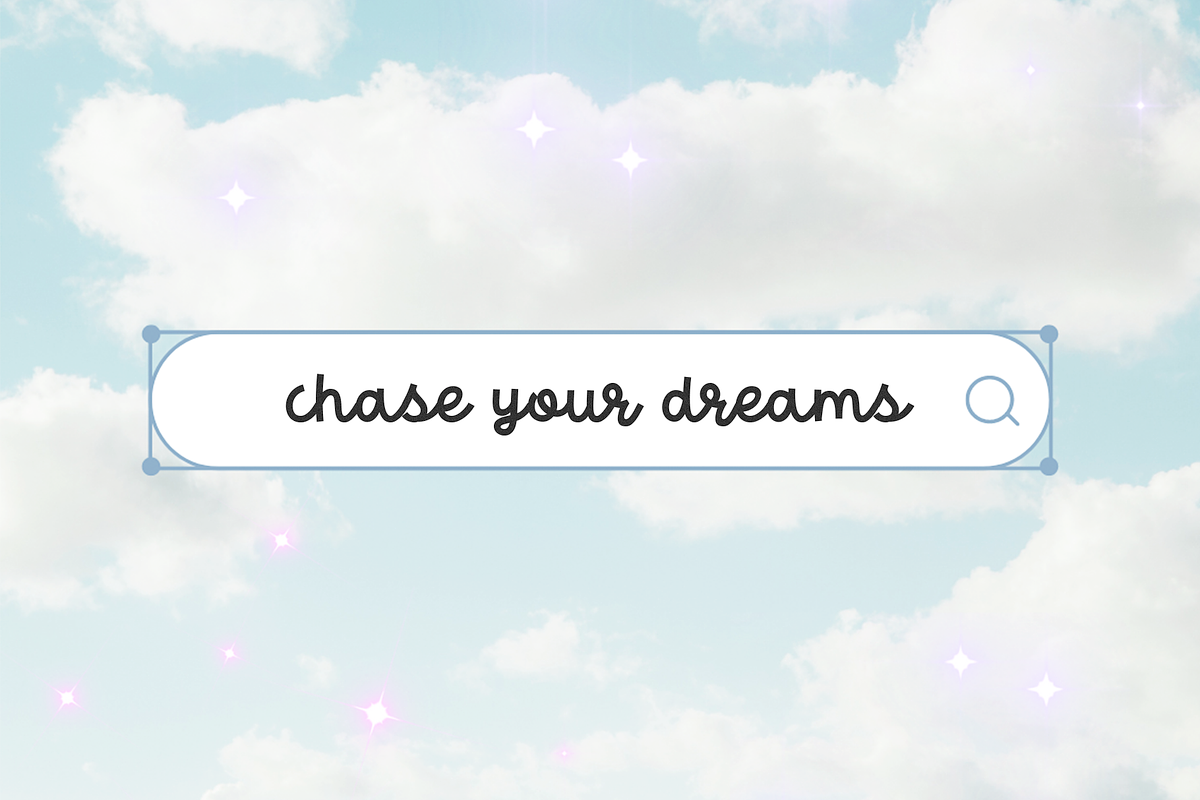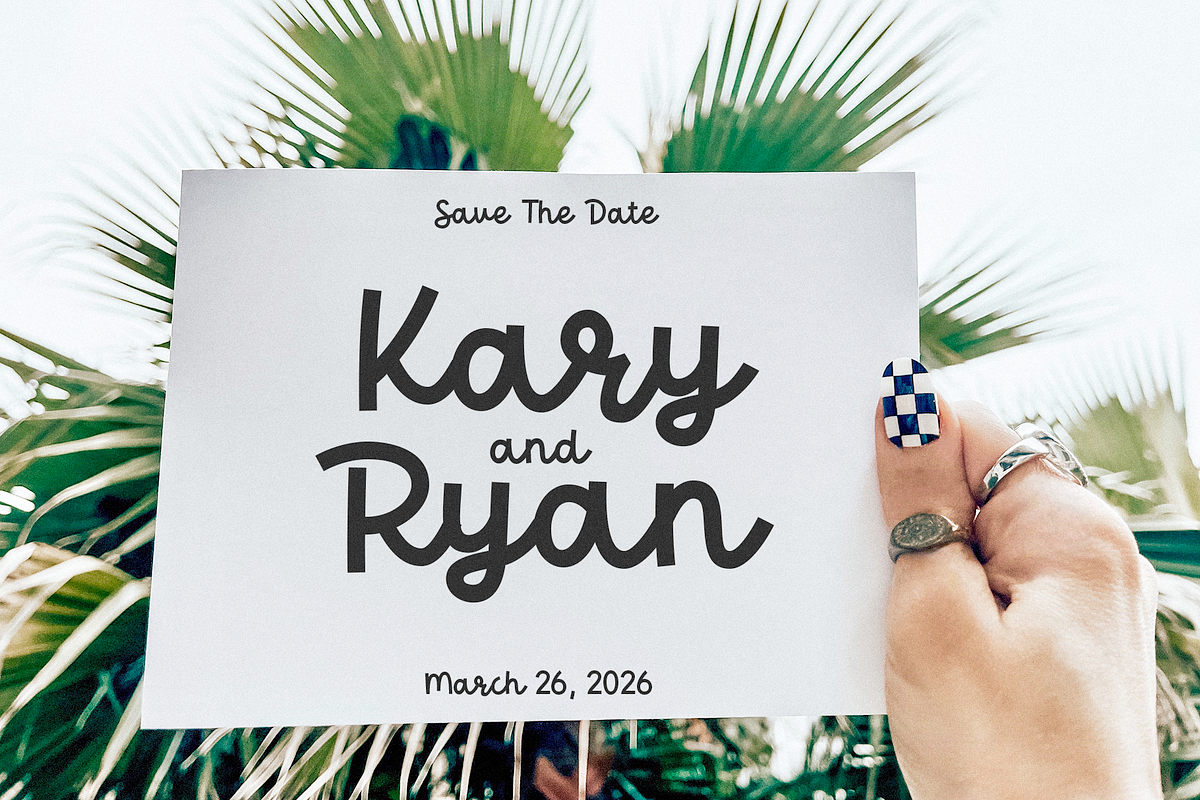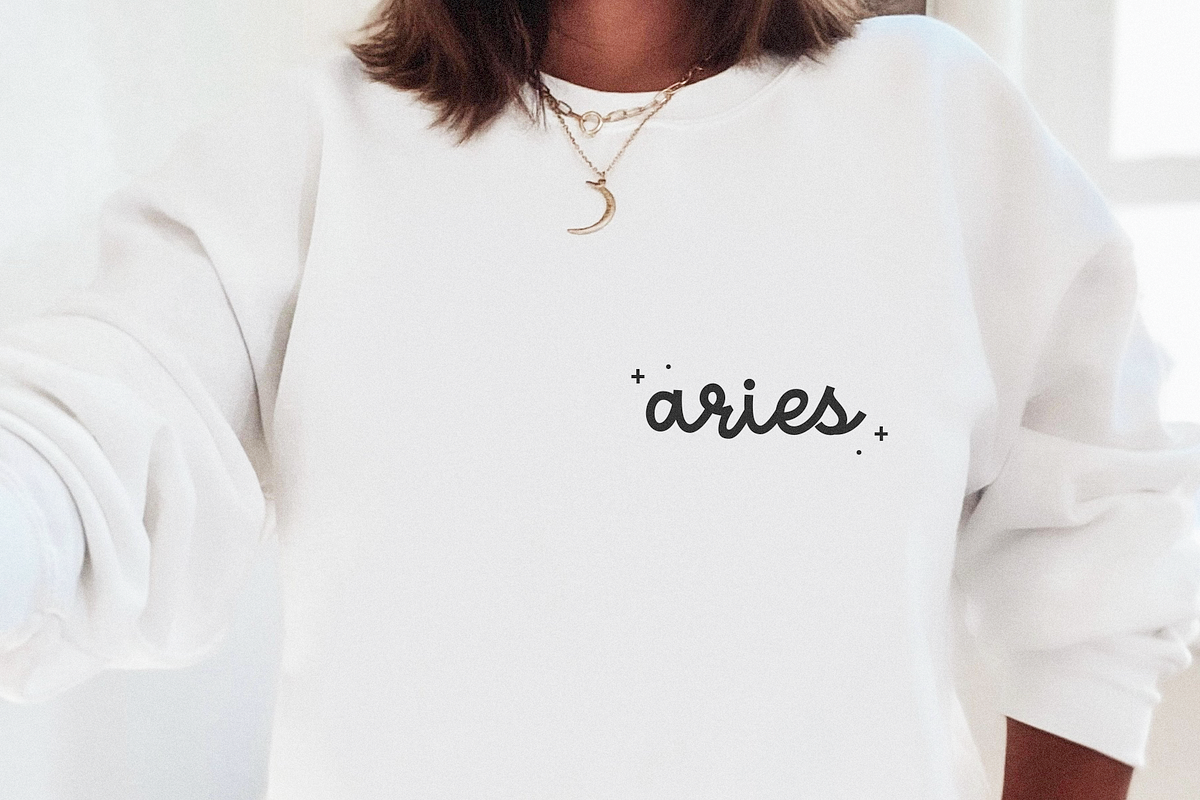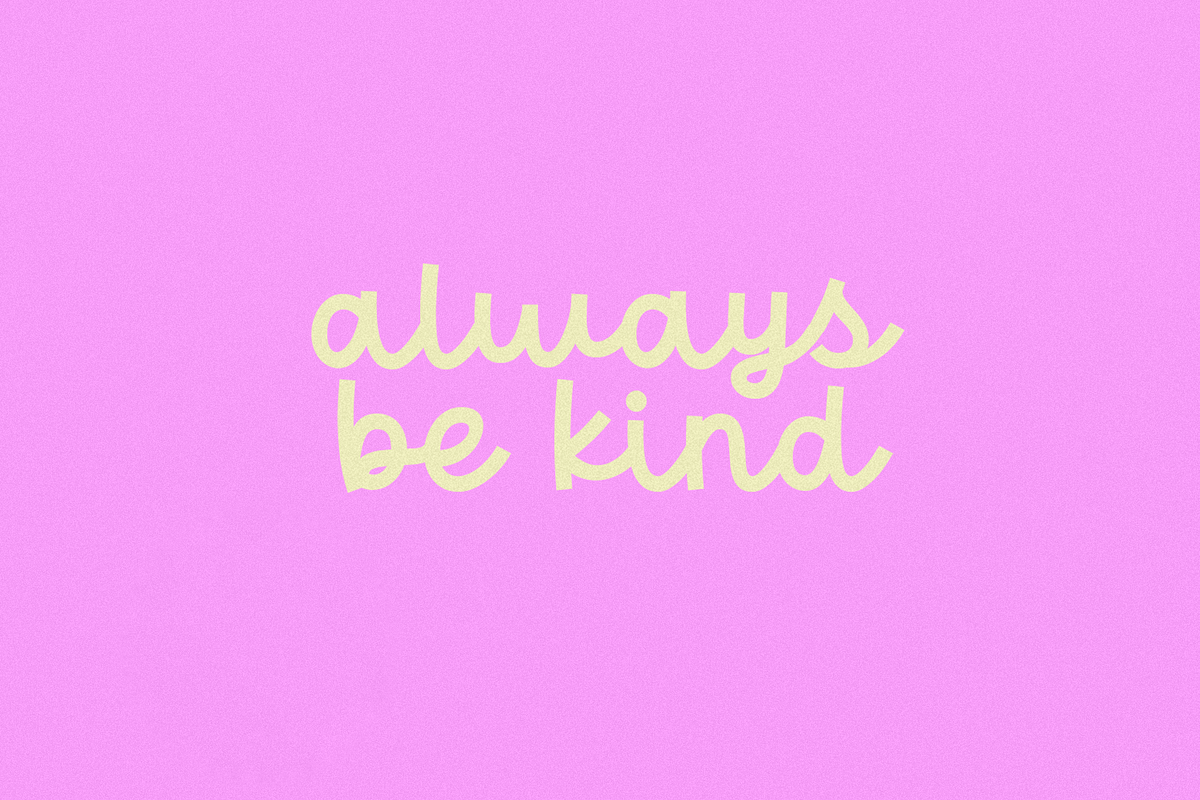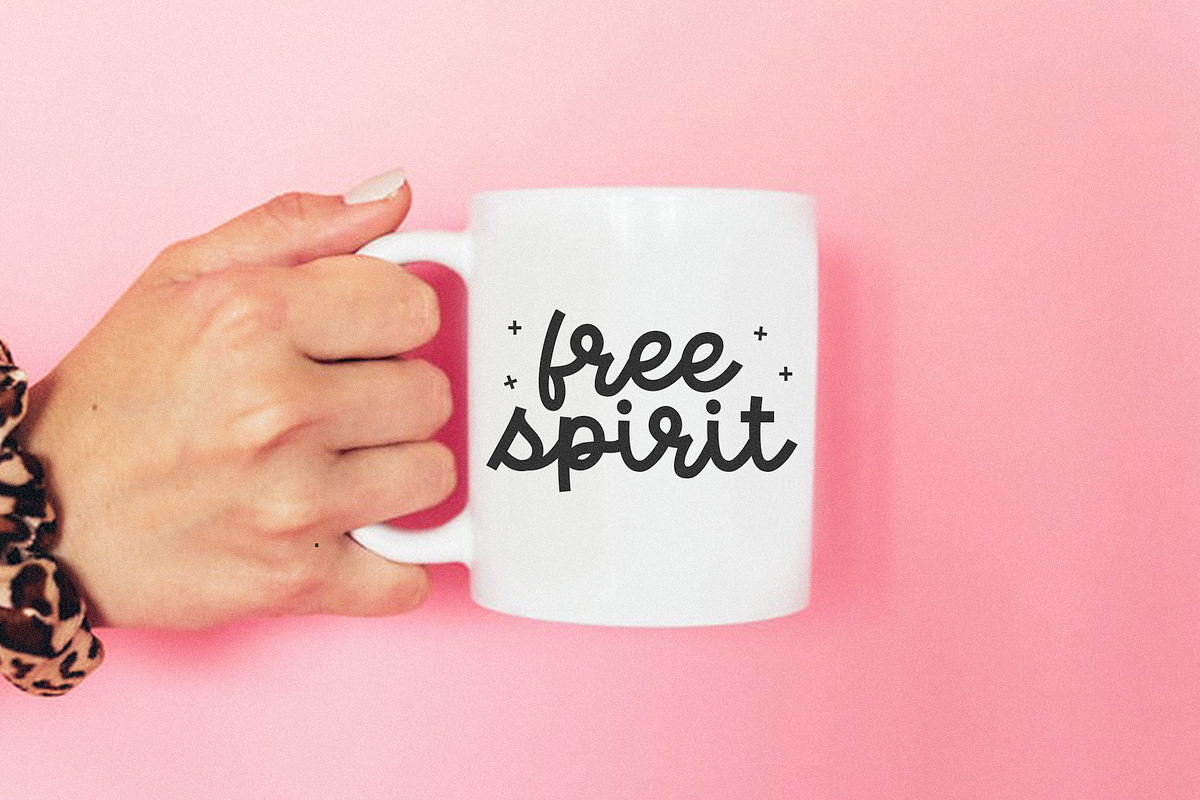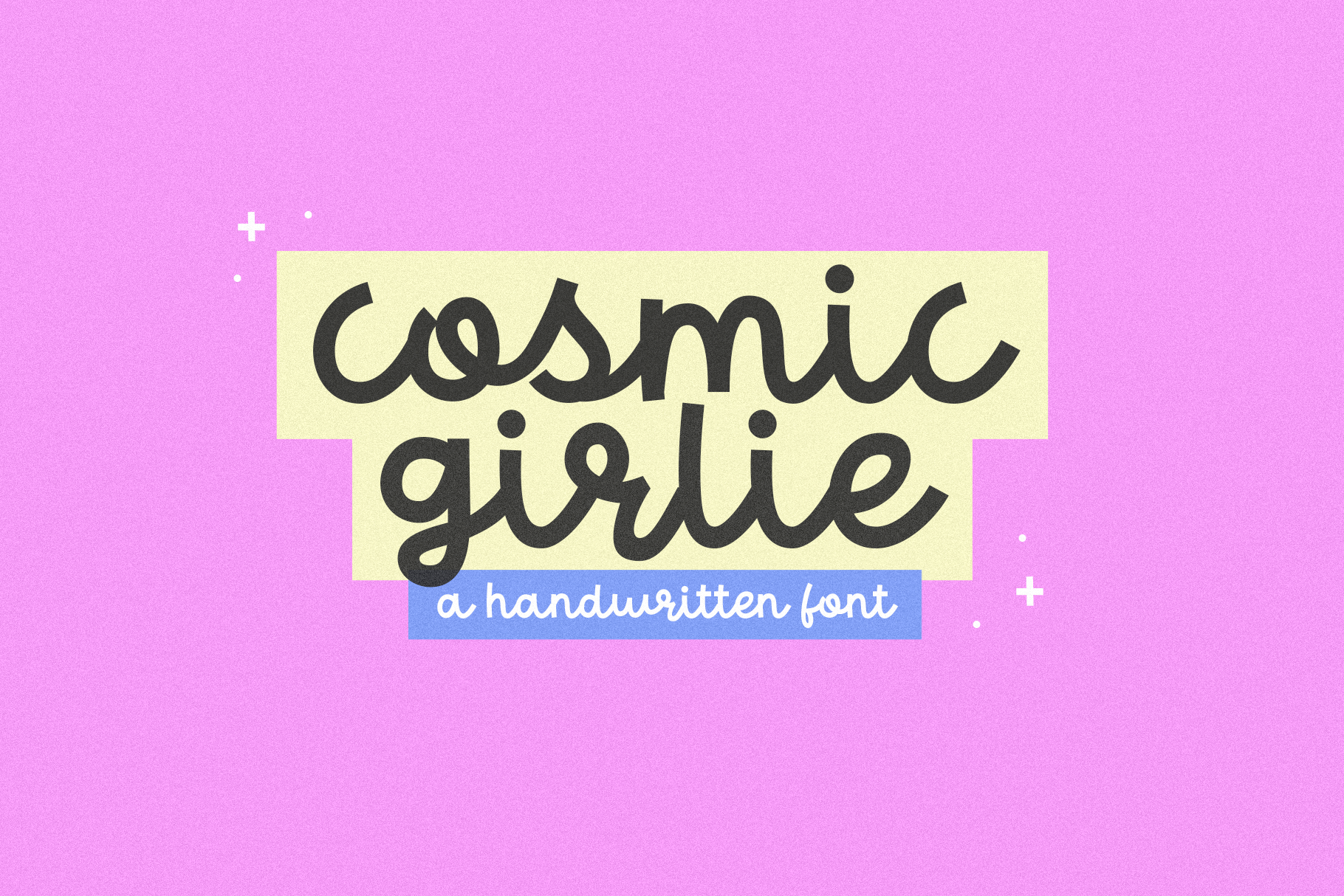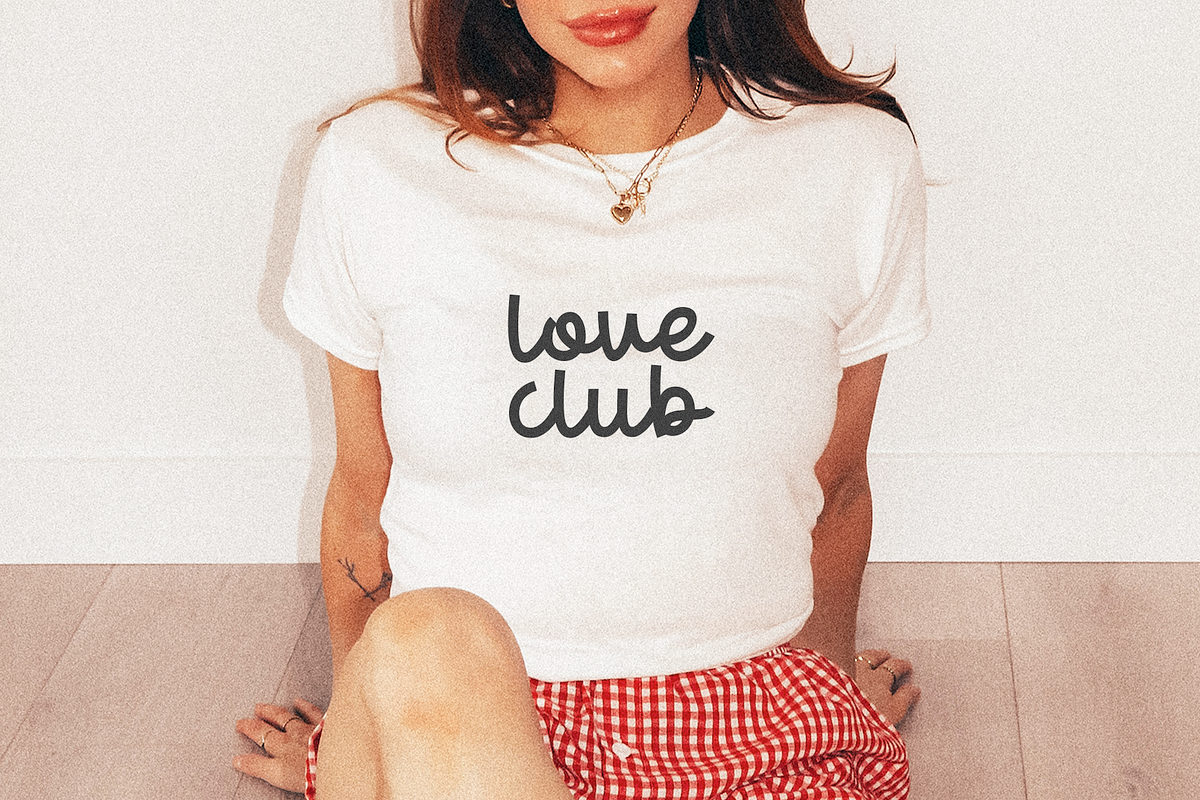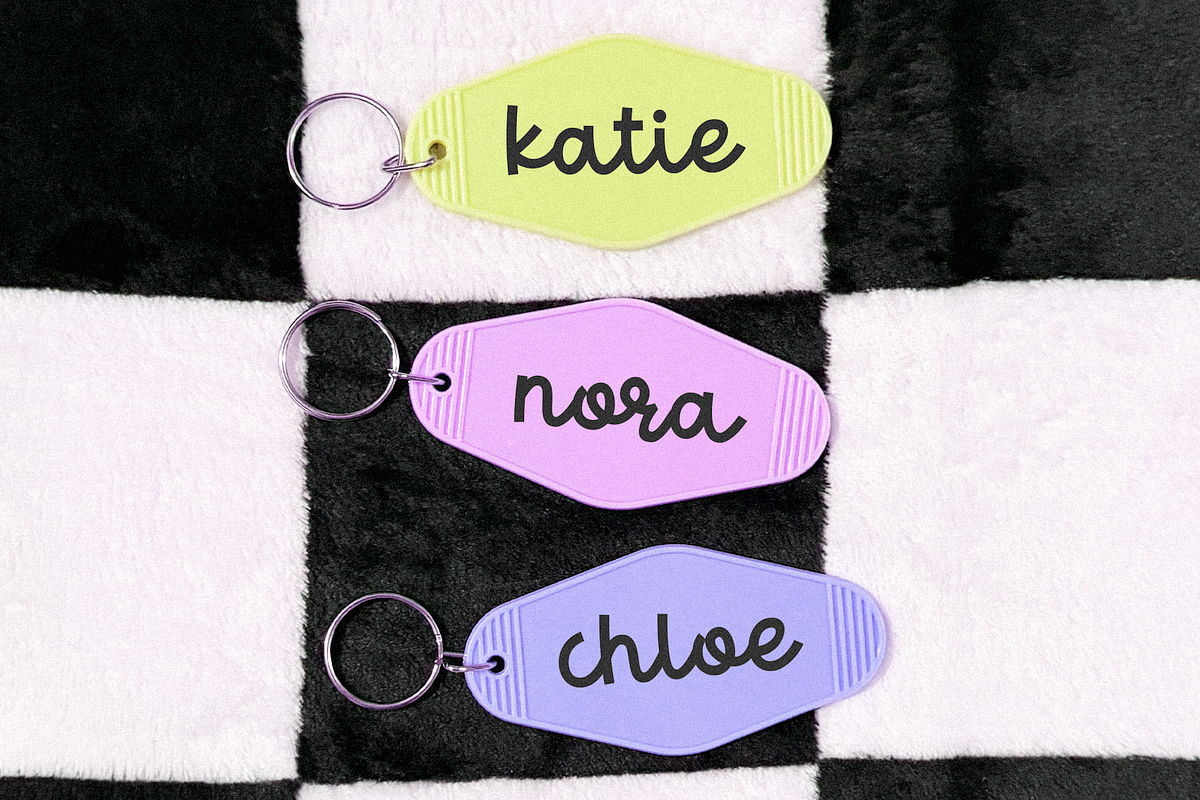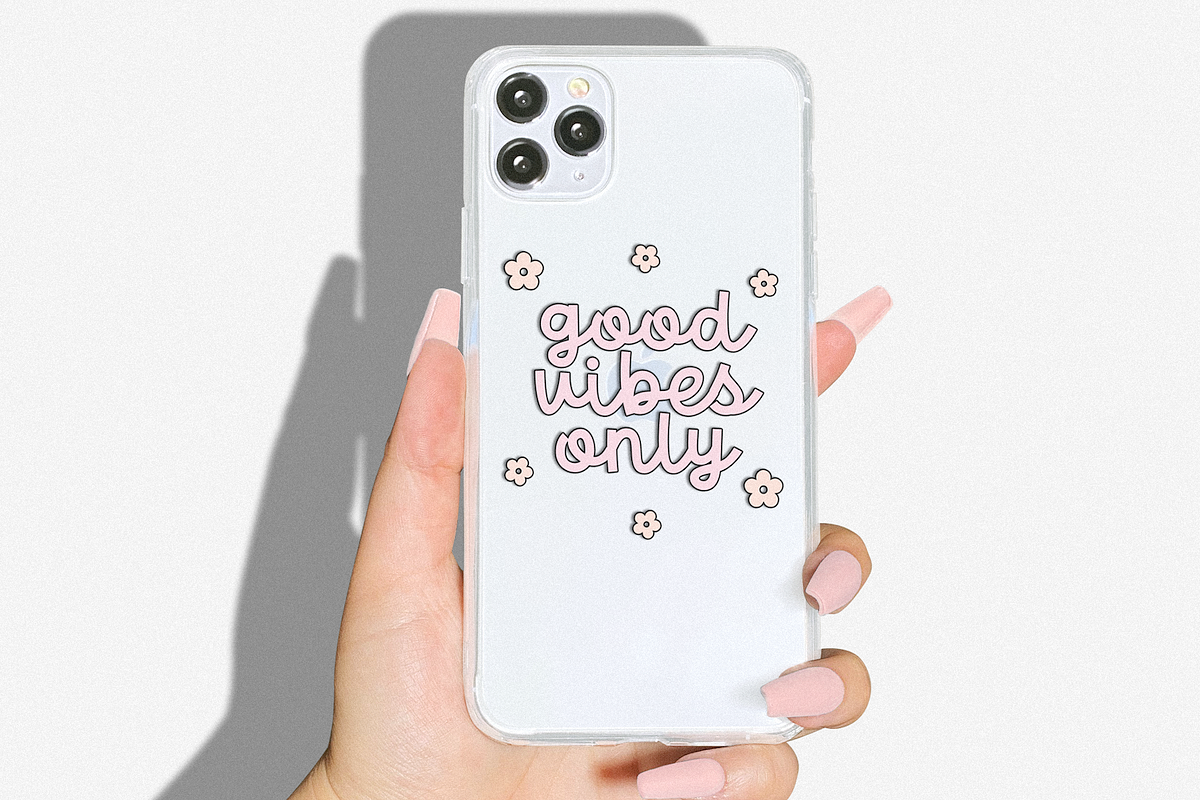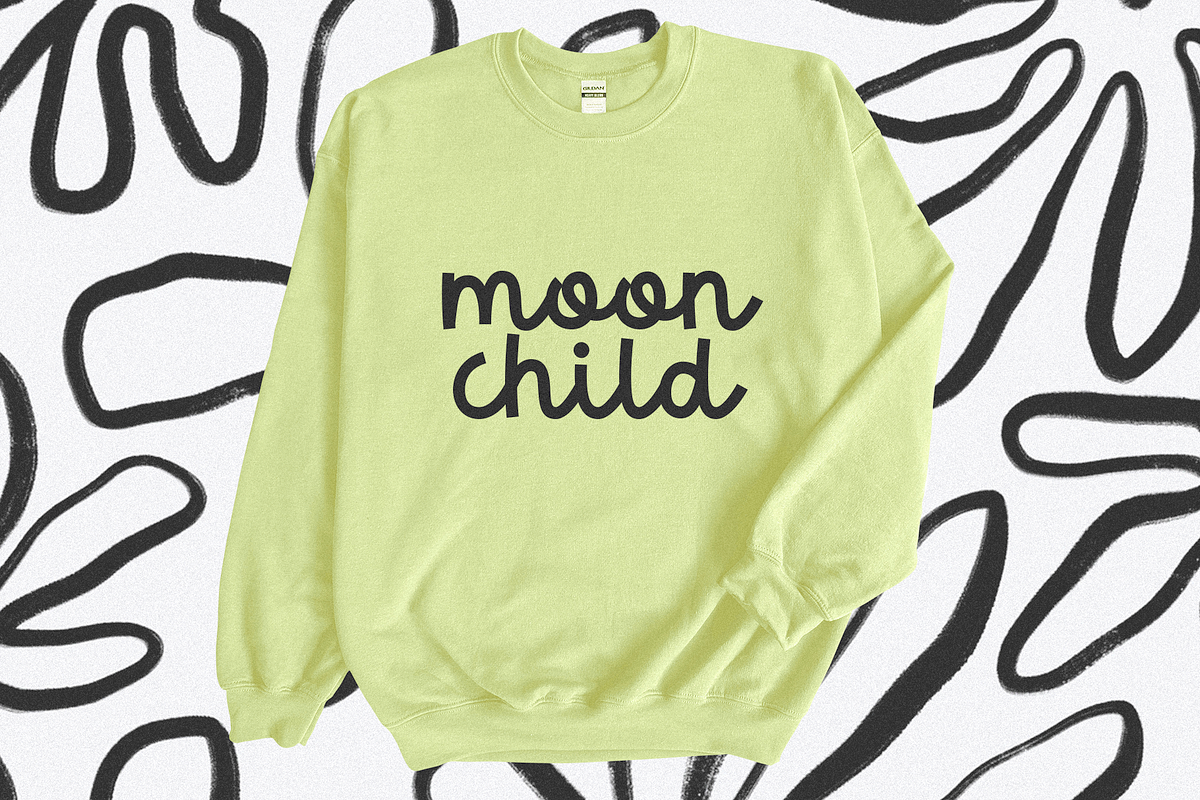
Cosmic Girlie | Cute Trendy Font
Cosmic Girlie is a handwritten script font.
This font is perfect for your retro designs, cricut projects, svg files, shirts, stickers, logos, social media and more!